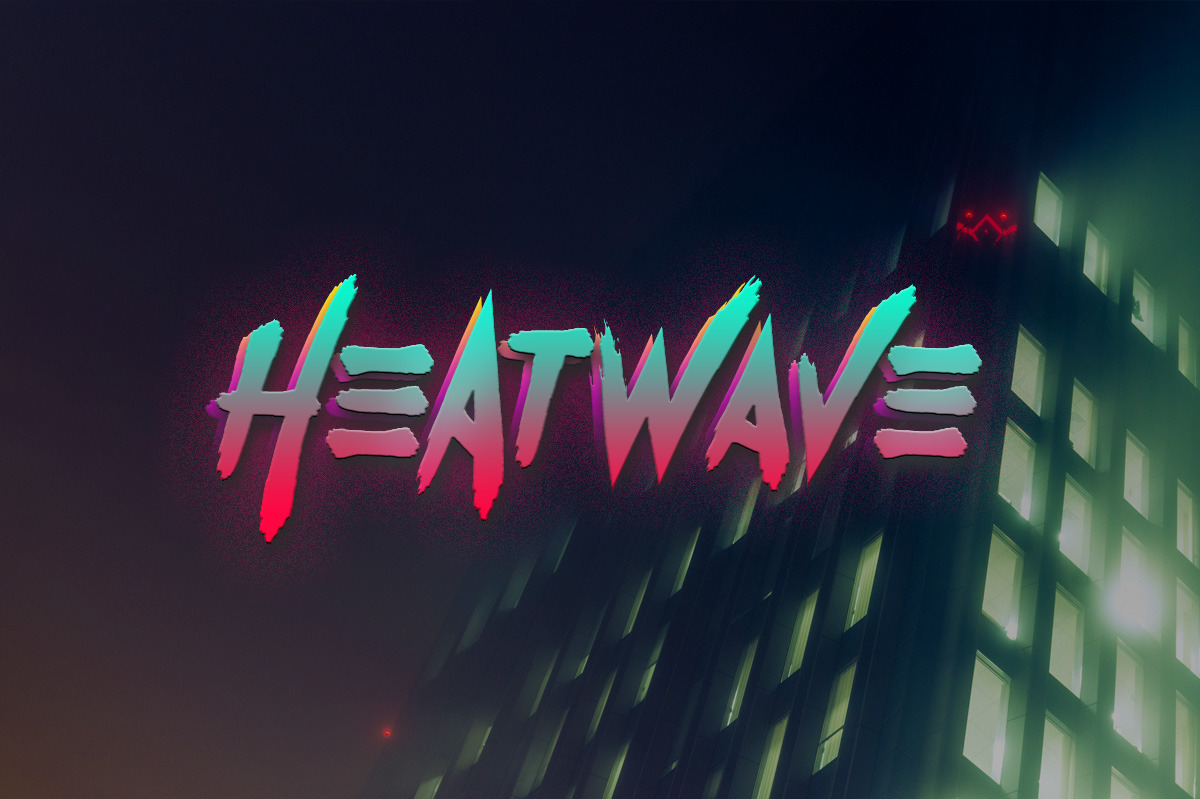
Heatwave - Brush Font
Heatwave is a brush font inspired by the awesomeness of the '80s. It comes with uppercase letters, alternates, numbers, punctuation and some multilingual support. Enjoy!